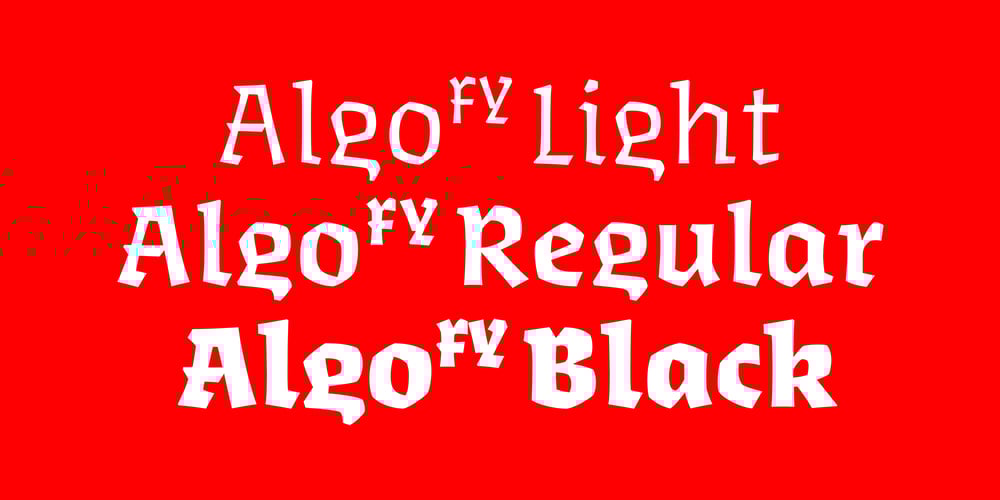
Algo FY
Algo FY font
Algo FY Font Family was designed by Michel Derre and published by Black Foundry. Algo FY contains 3 styles and family package options. Algo FY is a singular font family with broken ductus and blackletter aspect. Clearly inspired by calligraphic shapes, each of the three weights have been especially designed as if the tool has changed. With its special articulations and its differentiated instrokes and outstrokes, Algo FY is a sculptural, rustic, primitive and dynamic font family. The alternating game between concave and convex shapes gives this typeface a spontaneous and unpredictable style, with a strong personality. Each weight shows finest details on each part of the letters. If there exist letters which are even more notable than others, you should have a look on the g with its short final curve or to the Black Q with its beautiful junction of its main part and its tail. Also the dots from i and j are different. Light and Regular are for text setting, while the Black style should be used for titling and headlines. Algo FY will fit with every project you want to give a strong and singular personality. Algo FY has been designed by Michel Derre, typographer, graphic designer and letterer at the begining of his carreer, who practices and teaches calligraphy since the eighties.